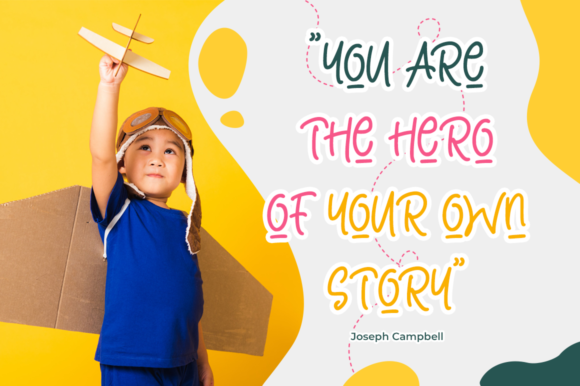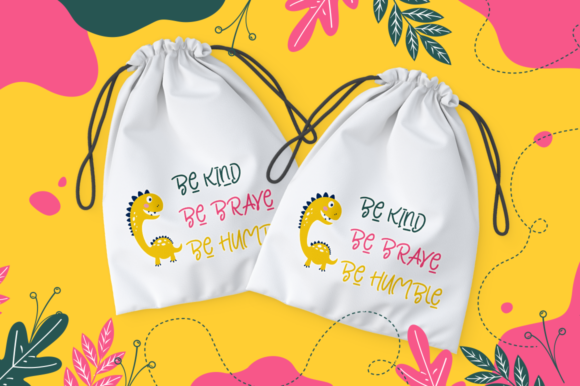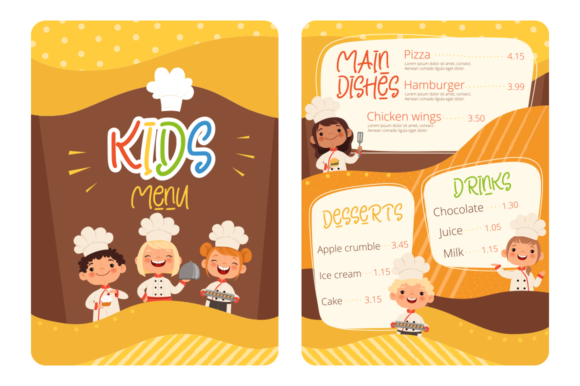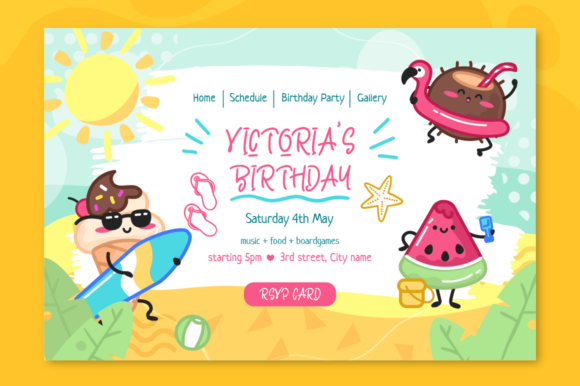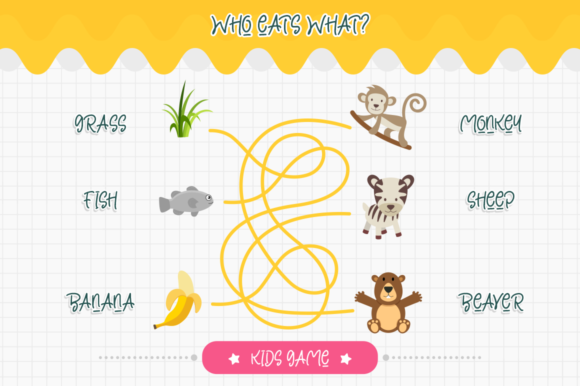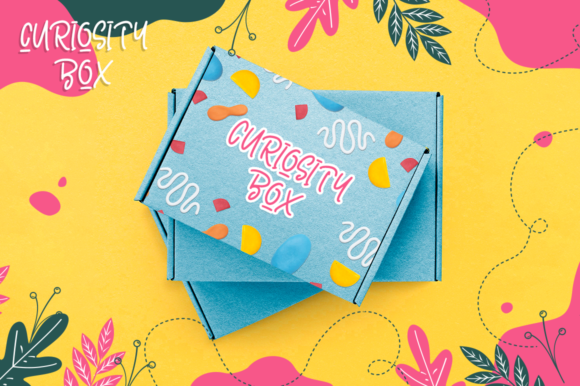
Introducing Alterline Font: The Ultimate Choice for Modern and Playful Designs
Are you tired of using the same old fonts for your designs? Look no further! Alterline Font is here to revolutionize your creative projects with its cute and playful style. This modern font is perfect for designers and crafters who want to add a touch of uniqueness and fun to their work. In this article, we’ll explore the features and benefits of Alterline Font, and how it can elevate your designs to the next level.
What is Alterline Font?
Alterline Font is a modern and playful font designed to make your designs look fresh and exciting. Its cute and quirky style makes it perfect for a wide range of projects, from labels and quotes to posters and DIY projects. With Alterline Font, you can add a personal touch to your designs and make them stand out from the crowd.
Features of Alterline Font
So, what makes Alterline Font so special? Here are some of its key features:
- Cute and Playful Style: Alterline Font has a unique and playful style that’s perfect for designers and crafters who want to add a touch of fun to their designs.
- Modern and Unique: This font is designed to make your designs look modern and unique, perfect for those who want to stay ahead of the curve.
- Versatile: Alterline Font can be used for a wide range of projects, from labels and quotes to posters and DIY projects.
- Easy to Read: Despite its playful style, Alterline Font is easy to read, making it perfect for designs that require a clear and concise message.
Uses of Alterline Font
So, what can you use Alterline Font for? The possibilities are endless! Here are some ideas to get you started:
- Labels: Use Alterline Font to create cute and playful labels for your products, gifts, or DIY projects.
- Quotes: Add a touch of personality to your quotes with Alterline Font, perfect for social media posts, posters, or prints.
- Posters: Create eye-catching posters with Alterline Font, perfect for advertising, promoting events, or showcasing your work.
- DIY Projects: Use Alterline Font to add a personal touch to your DIY projects, such as crafts, decorations, or gifts.
- Branding: Establish your brand identity with Alterline Font, perfect for logos, business cards, or packaging.
- Packaging: Add a touch of fun to your packaging with Alterline Font, perfect for product labels, boxes, or bags.
- Greeting Cards: Create personalized greeting cards with Alterline Font, perfect for special occasions or holidays.
- Websites: Use Alterline Font to add a playful touch to your website, perfect for headers, titles, or captions.
- Photos: Add a caption or quote to your photos with Alterline Font, perfect for social media posts or prints.
- Kids Photography: Use Alterline Font to create fun and playful captions for kids’ photos, perfect for parents, photographers, or designers.
- Signs: Create eye-catching signs with Alterline Font, perfect for advertising, promoting events, or directing traffic.
- Window Art: Use Alterline Font to create stunning window art, perfect for storefronts, restaurants, or events.
- Scrapbooking: Add a personal touch to your scrapbooking projects with Alterline Font, perfect for titles, captions, or journaling.
- Tags: Create cute and playful tags with Alterline Font, perfect for gifts, DIY projects, or labeling.
Why Choose Alterline Font?
So, why should you choose Alterline Font for your designs? Here are some reasons:
- Unique Style: Alterline Font has a unique and playful style that will make your designs stand out from the crowd.
- Versatility: This font can be used for a wide range of projects, making it a great addition to your font library.
- Easy to Use: Alterline Font is easy to read and use, making it perfect for designers and crafters of all levels.
- Modern and Fresh: This font is designed to make your designs look modern and fresh, perfect for those who want to stay ahead of the curve.
In conclusion, Alterline Font is a cute and playful font that’s perfect for designers and crafters who want to add a touch of fun and uniqueness to their designs. With its modern and unique style, versatility, and ease of use, Alterline Font is a great choice for a wide range of projects. Whether you’re working on labels, quotes, posters, DIY projects, or more, Alterline Font is sure to elevate your designs to the next level.